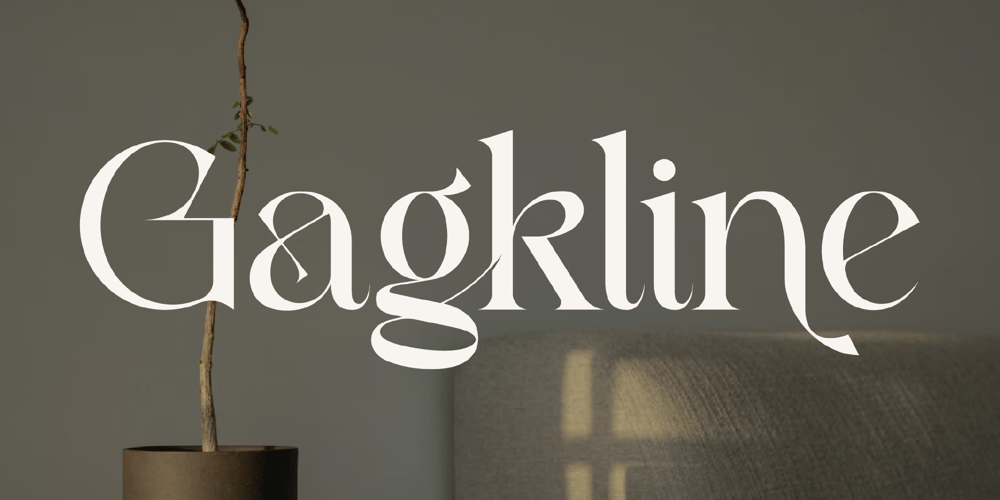
Gagkline Font Family was designed by Heru Utama Putra and published by Letterena Studios. Gagkline contains 2 styles and family package options. Proudly present Gagkline, a modern and classic serif font with a unique style and modern look. This typeface is perfect for an elegant & luxury logo, book or movie title design, fashion brand, magazine, clothes, lettering, quotes, and so much more.